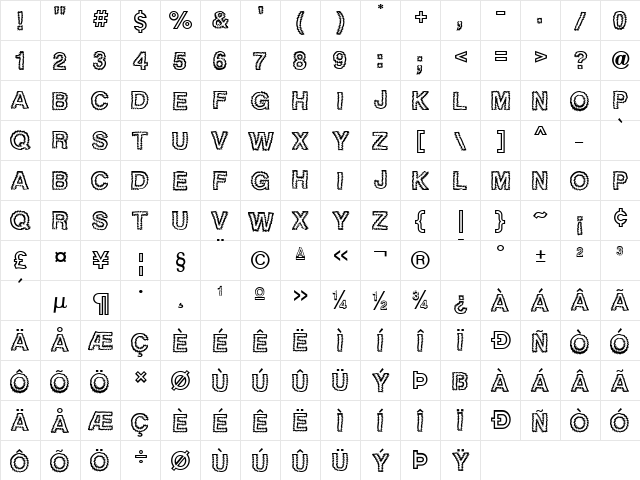
TigerteethICG Medium Font Preview
TigerteethICG Medium
TigerteethICG Medium Font Details
Design Context for TigerteethICG Typeface
TigerteethICG is a composed and adaptable typeface that performs quietly and consistently across a wide range of design contexts.